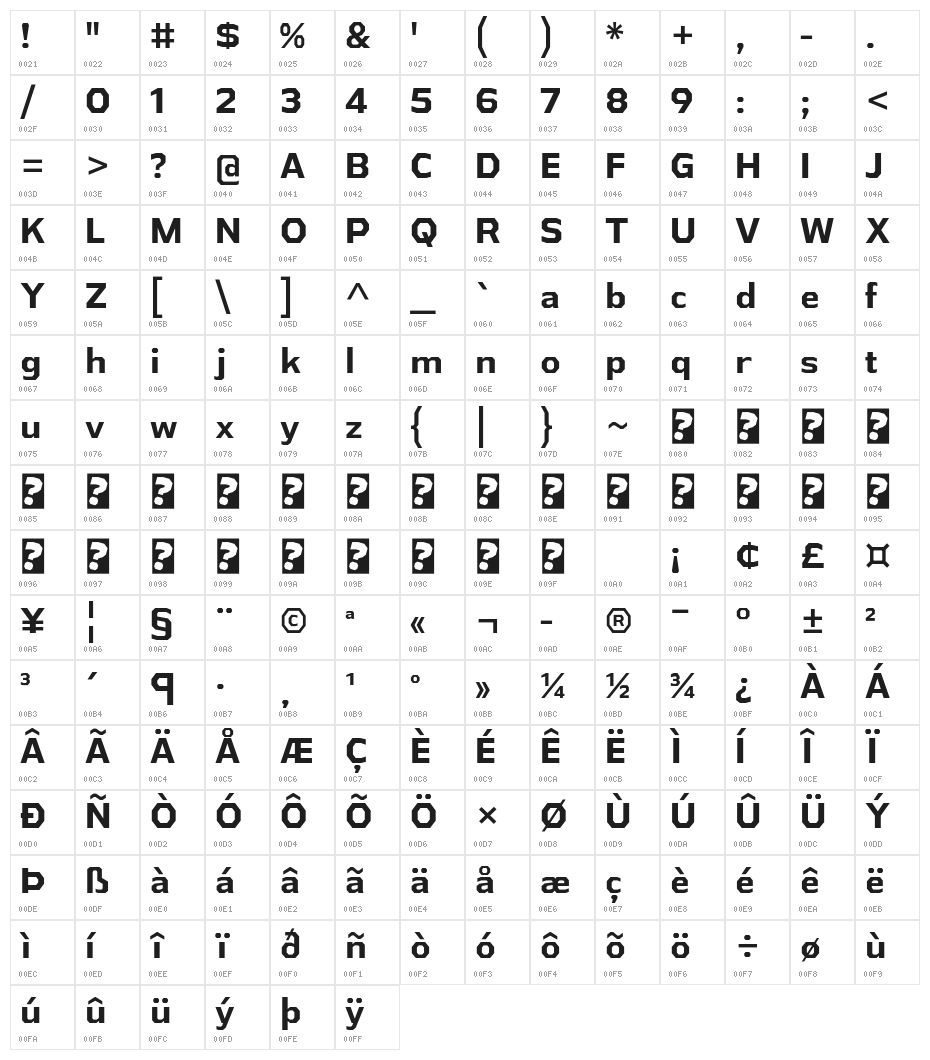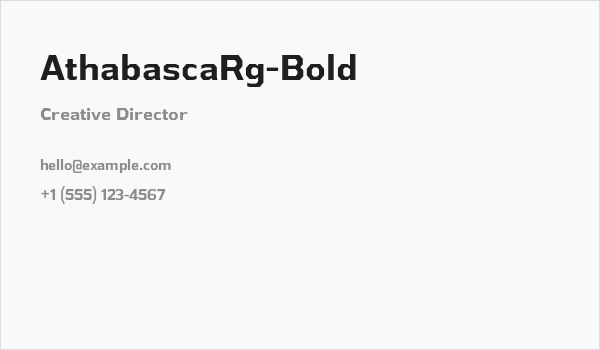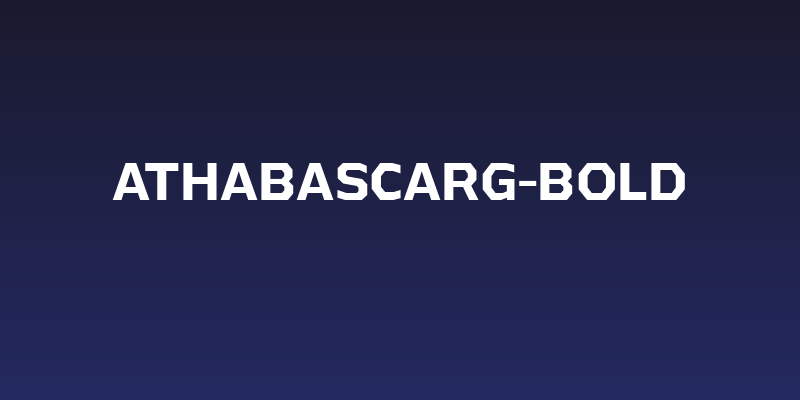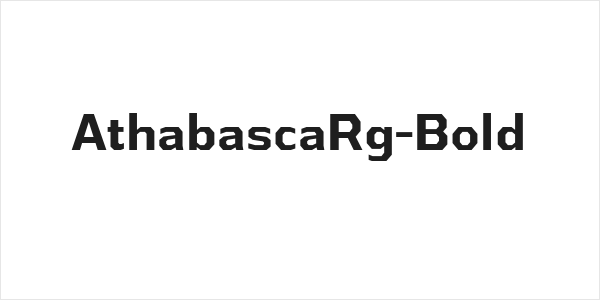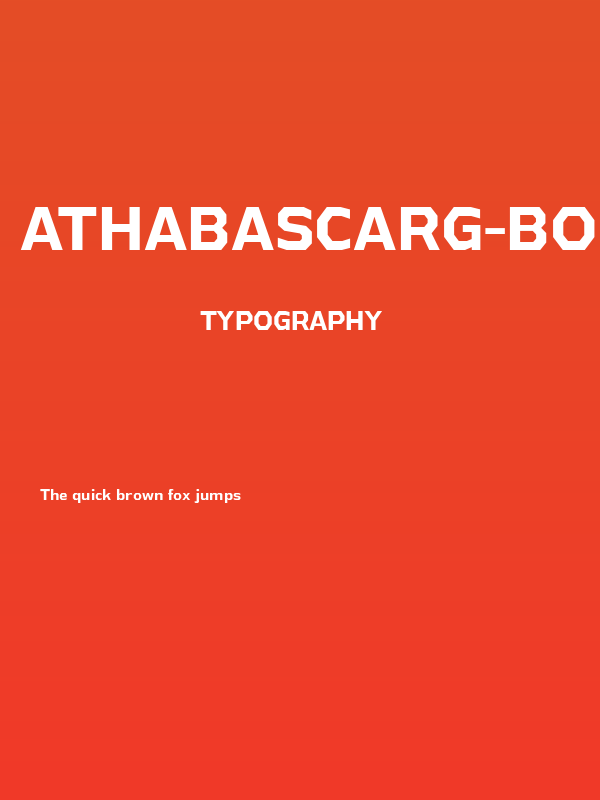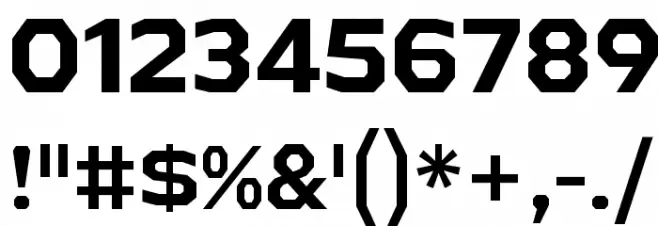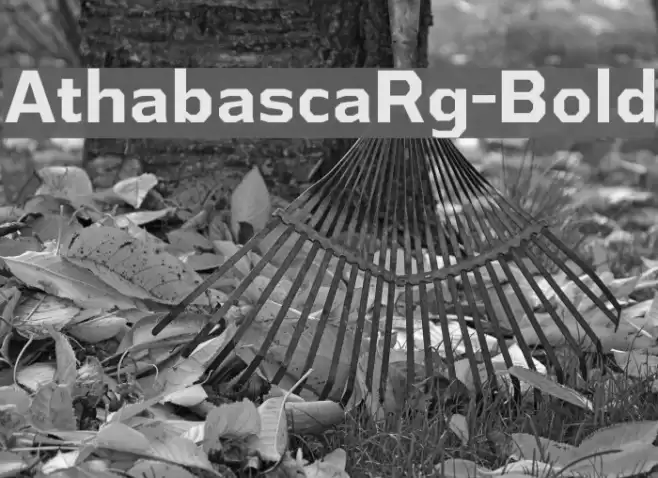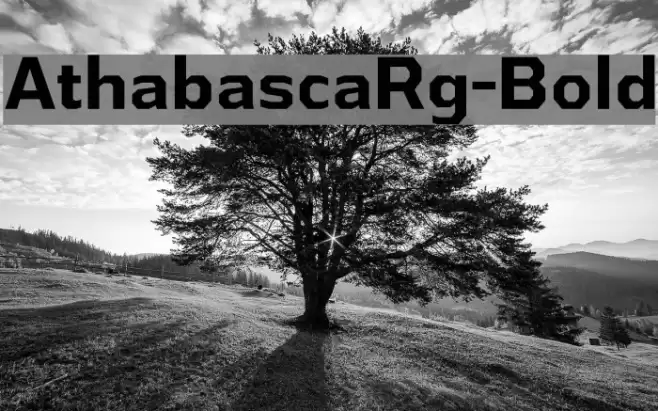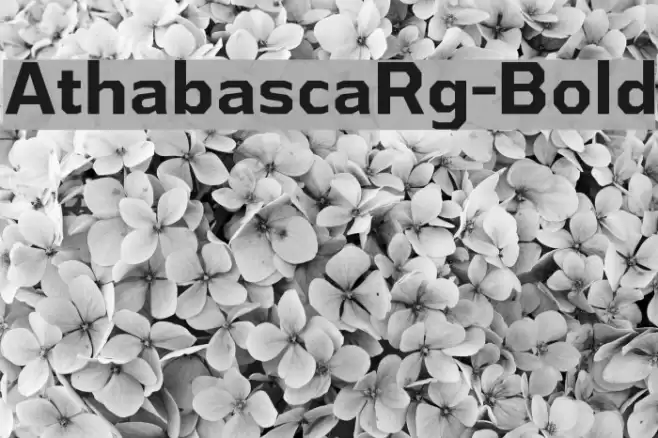
AthabascaRg-Bold Font
AthabascaRg-Bold Description
This font exhibits a bold and robust style with a geometric sans-serif design. The characters are constructed with strong, angular lines and a uniform stroke width, giving it a modern and assertive appearance. The uppercase letters are particularly striking with their block-like structure, while the lowercase letters maintain a consistent style that complements the uppercase. The numerals and special characters are crafted with the same boldness, ensuring a cohesive look across all text. The font's design is clean and straightforward, making it highly legible and suitable for various applications.
| Proposed Projects | Ideal for branding, headlines, posters, and signage where a strong, modern presence is desired. |